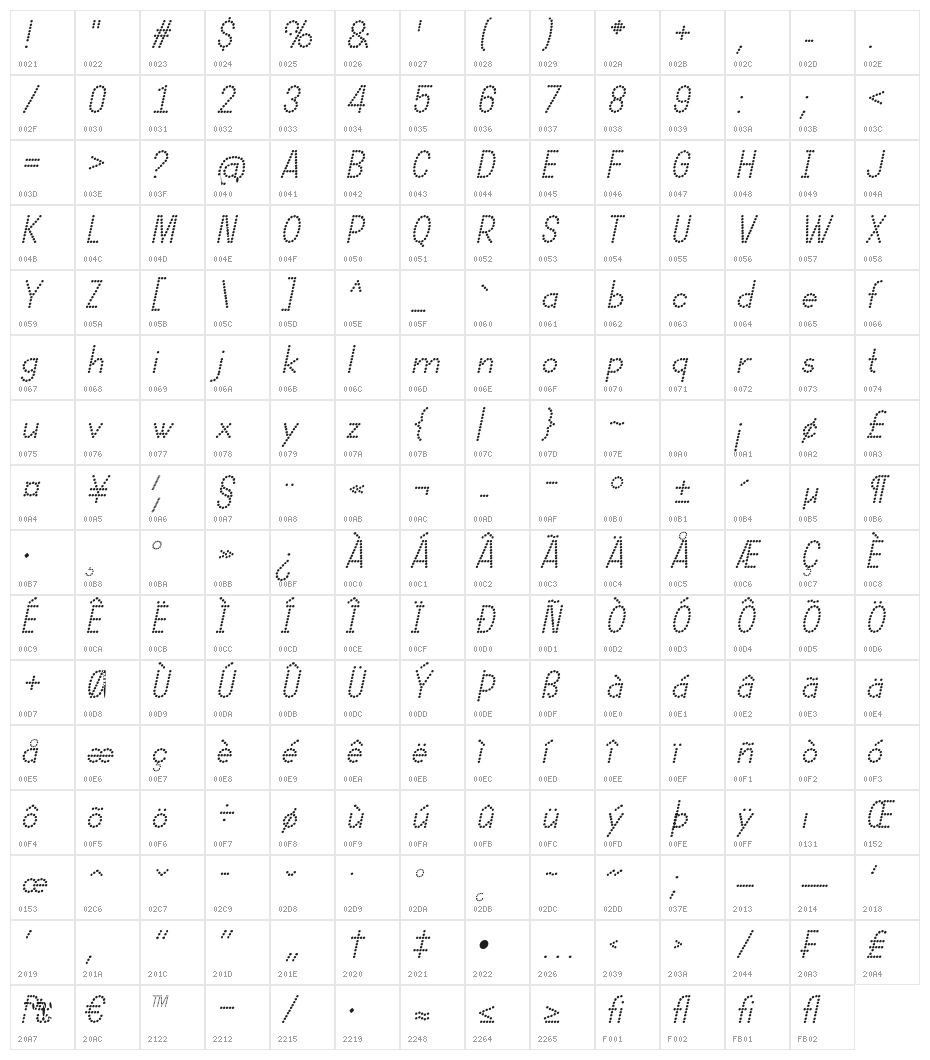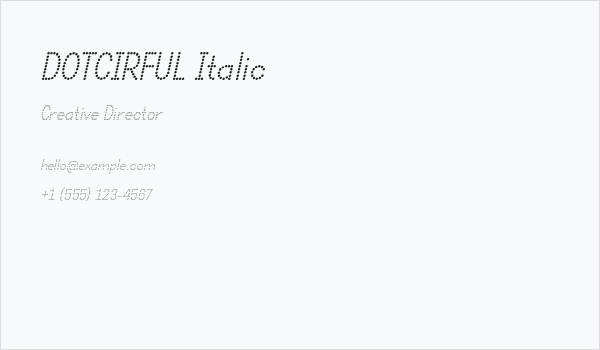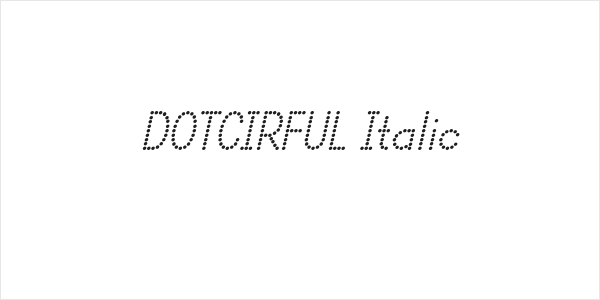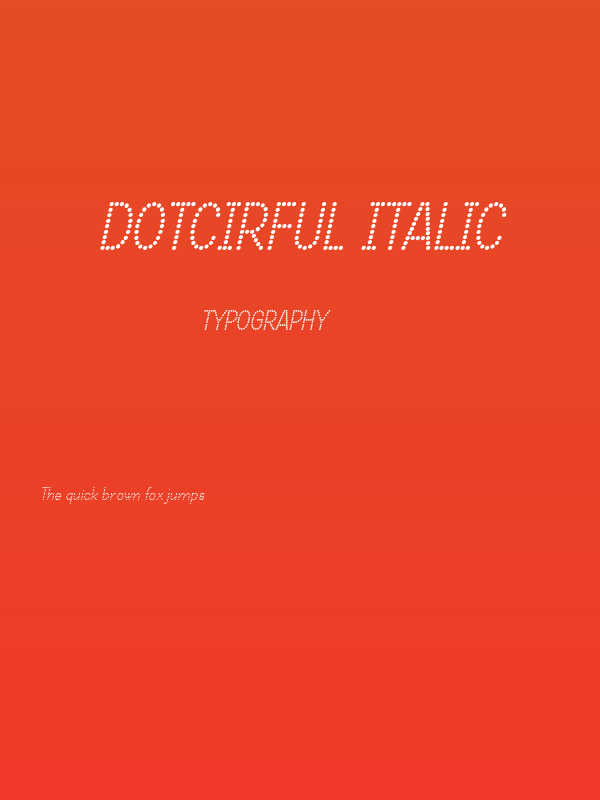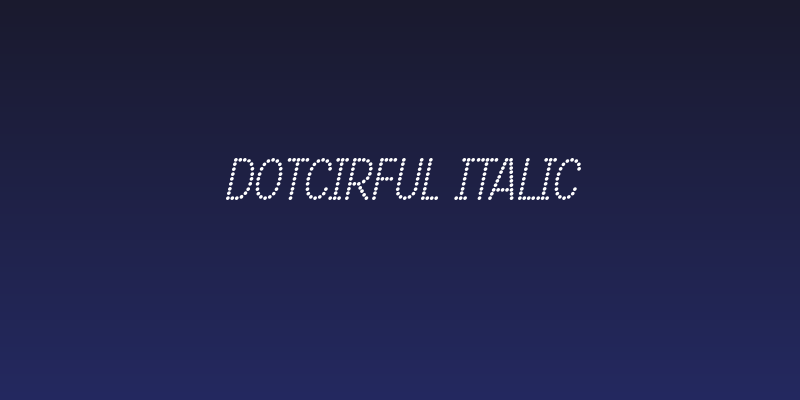
DOTCIRFUL Italic Font
DOTCIRFUL Italic Description
This unique typeface is composed entirely of circular dots arranged to form each character, giving it a distinct and playful appearance. The dots are evenly spaced, creating a consistent pattern throughout the alphabet, numerals, and special characters. The italic slant adds a dynamic and modern touch, making it stand out in any design. The font's playful nature is balanced by its clean and organized structure, making it suitable for creative projects that require a touch of whimsy while maintaining readability.
| Overall Style | Modern, Playful |
| Proposed Projects | Ideal for children's book covers, playful branding, party invitations, and creative posters. |